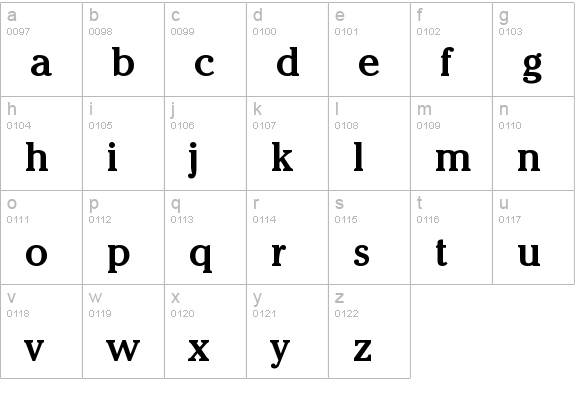
Chelsey Bold is a strong, high-contrast variant in the Chelsey typeface family \xE2\x80\x94 well suited to headlines, attention-grabbing titles, and strong calls-to-action.
Chelsey Bold font is a modern and stylish typeface that exudes confidence and sophistication. Its bold and sleek design makes it perfect for a wide range of projects, from branding to editorial design. The strong, clean lines of Chelsey Bold font give your text a powerful presence on the page, making it stand out and grab attention. This versatile font is not only visually appealing but also highly legible, ensuring that your message is conveyed clearly and effectively. Whether you're designing a logo, poster, website, or any other creative project, Chelsey Bold font will add a touch of elegance and professionalism. The best part? Chelsey Bold font is available for free download at FontsMarket.com. So, don't miss out on the opportunity to enhance your designs with this stunning typeface. Download Chelsey Bold font today and take your projects to the next level!